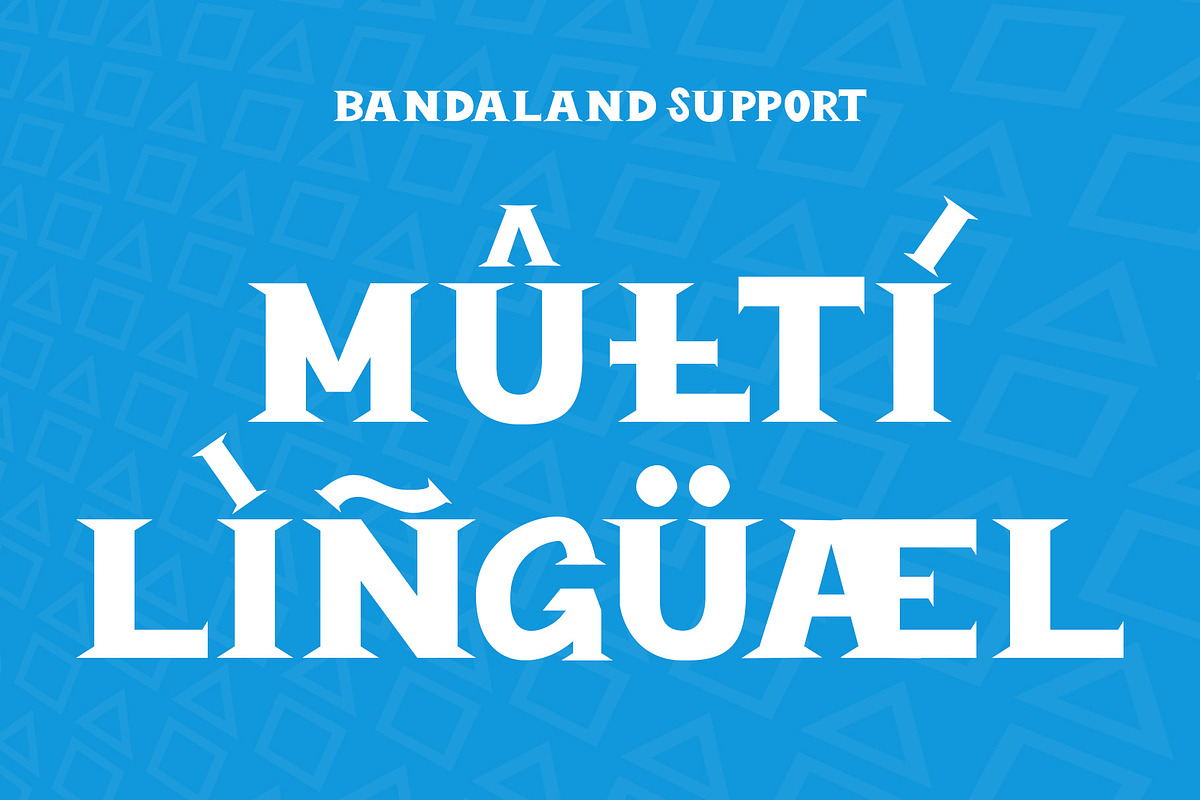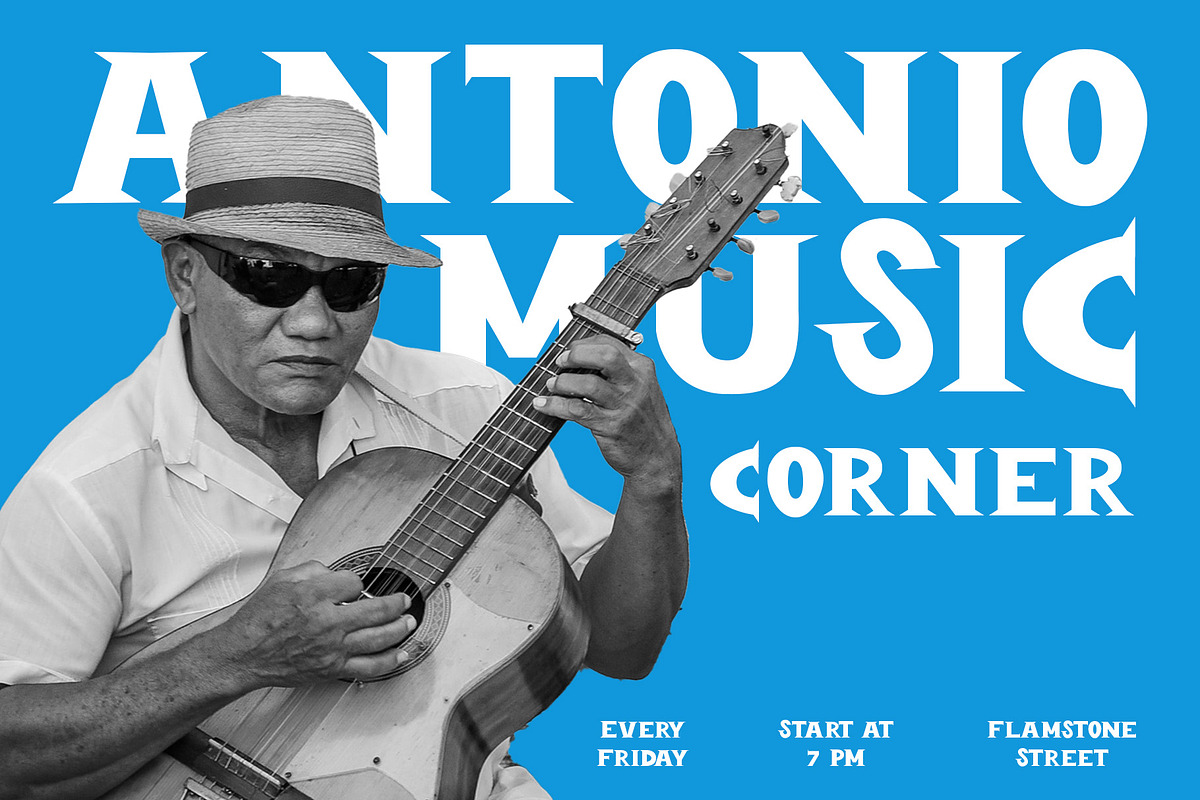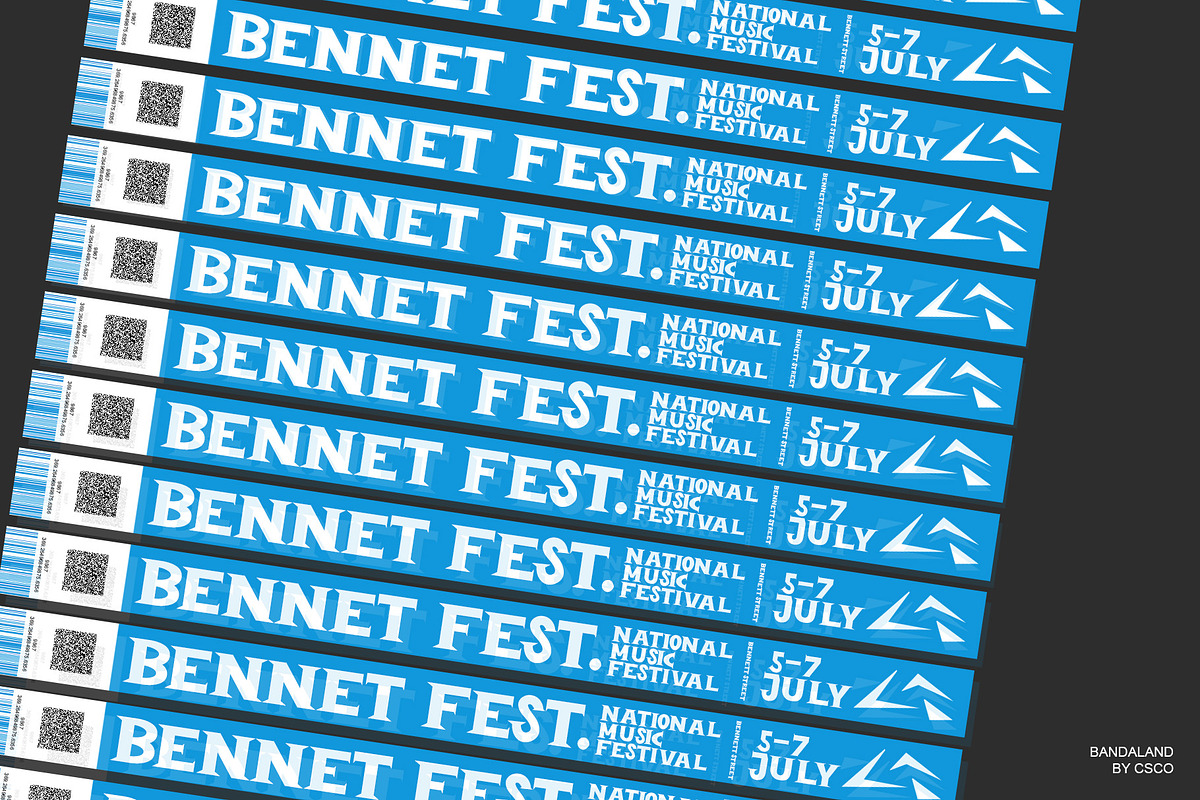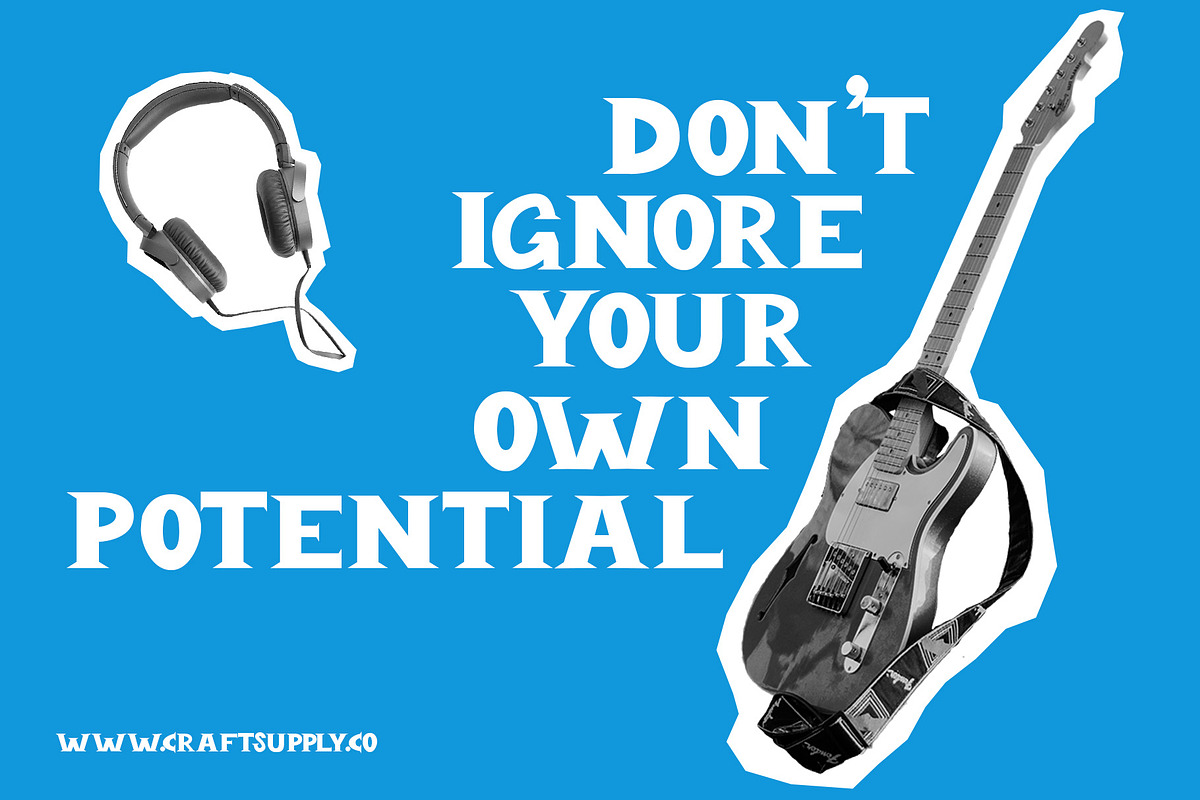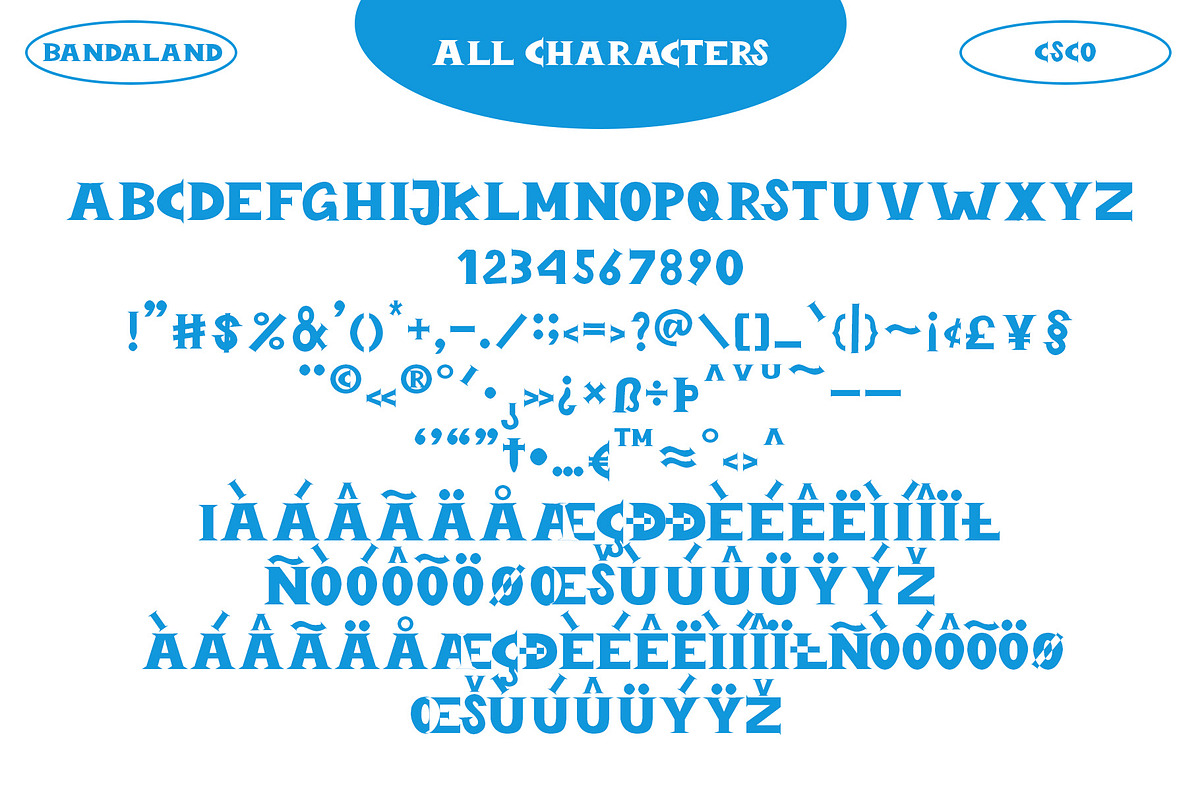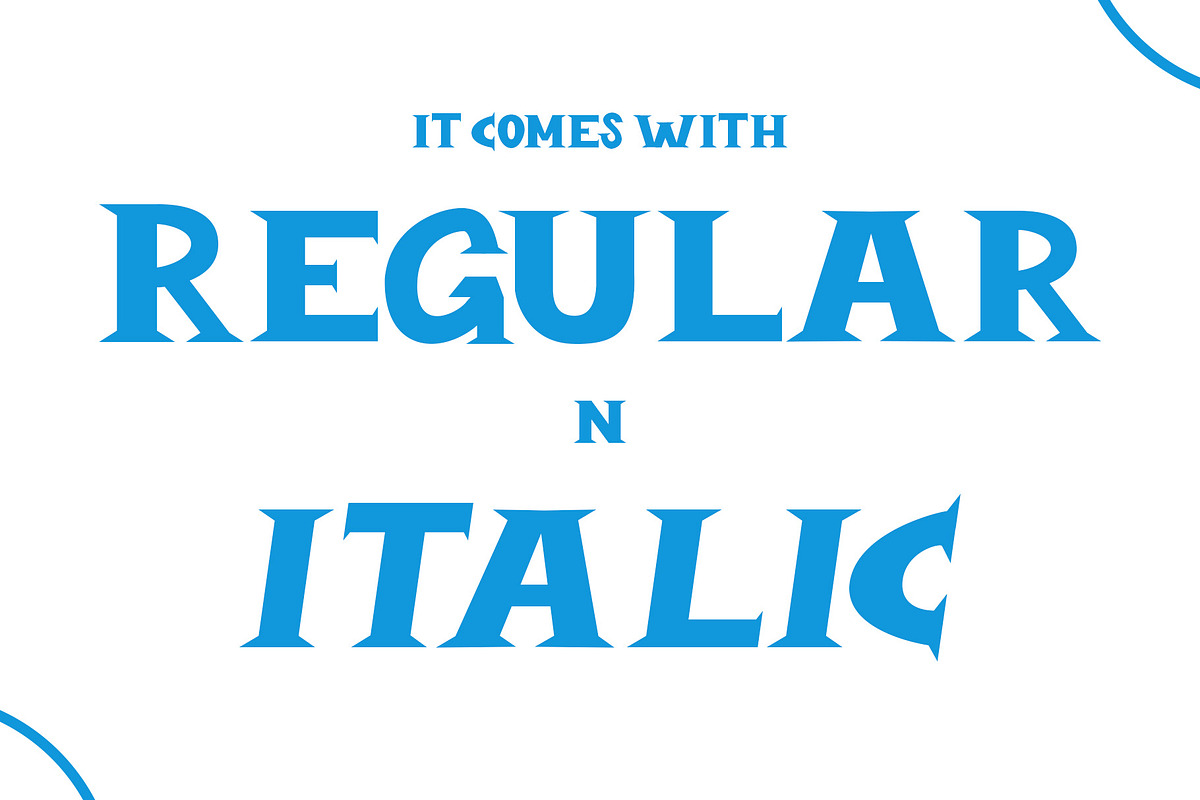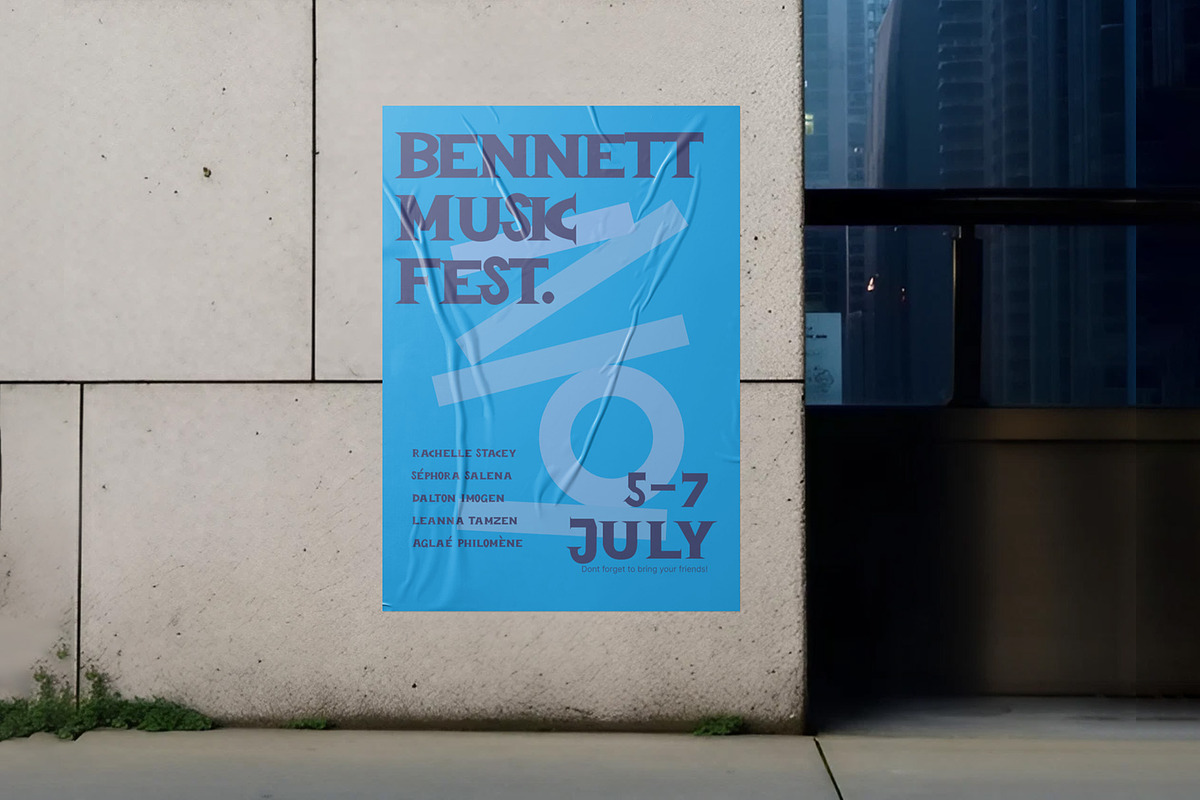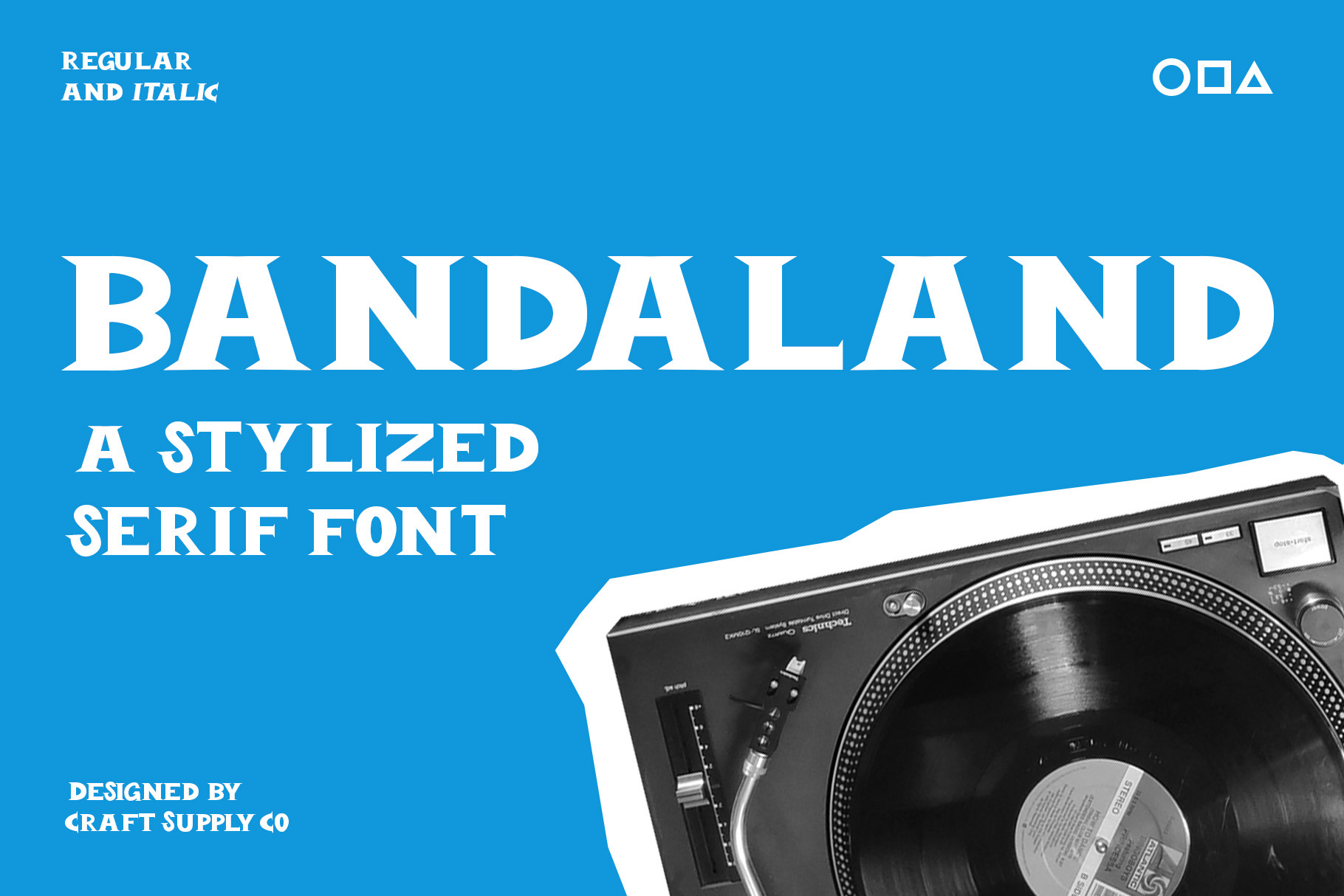
Bandaland – Stylized Serif Font
Introducing Bandaland – Stylized Serif Font
When it comes to fonts, Bandaland – Stylized Serif Font stands out as a bold and unforgettable choice, designed to captivate and demand attention. Let’s explore what makes this font a standout option for those aiming to make a lasting impression.
Bold and Unforgettable
At the core of Bandaland is its bold, strong serifs, shaping a distinctive and highly memorable look. With this font, your message remains vivid and unforgettable, avoiding easy oversight.
Versatile Across Design Projects
Bandaland showcases remarkable versatility, effortlessly fitting into various design projects. Whether you’re working on branding, crafting eye-catching headlines, or designing impactful posters, Bandaland injects a dose of strength and character that sets your work apart from the rest.
The Fusion of Strength and Captivation
What sets Bandaland apart is its remarkable fusion of strength with captivation. Its powerful and memorable design ensures your message takes center stage, making it a perfect choice for designers seeking to create a bold statement. Regardless of your level of design experience, Bandaland – Stylized Serif Font equips you with the perfect tool to draw attention and make a lasting impact.
A Comprehensive Font Package
Beyond style, Bandaland offers substance. The font package includes both regular and italic styles, providing flexibility for your creative projects. It covers all the essentials, featuring uppercase and lowercase characters, numerals, punctuation, and even extends support for various languages with accents. Moreover, it’s PUA encoded, ensuring seamless compatibility across a wide range of design applications.